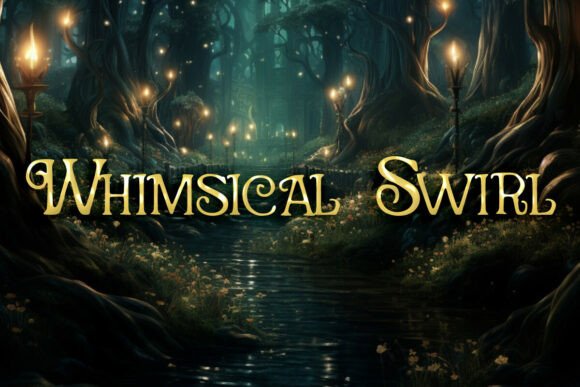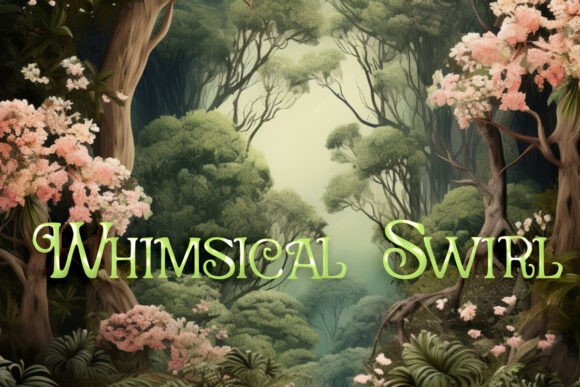
Whimsical Swirl Font
The Whimsical Swirl font is best classified as a decorative serif display font with fantasy and fairytale-inspired flourishes. Its elegant curves and playful swashes make it an exceptional choice for enhancing everything from T-shirts and stickers to branding elements that demand a touch of personality. Whether you’re crafting eye-catching magazine layouts or composing heartfelt greeting cards, Whimsical Swirl adds warmth and sophistication to every design. It integrates seamlessly with SVG files and Cricut projects, bringing a unique flair to handmade creations. From poster designs to social media graphics, this font injects a contemporary yet whimsical edge that makes your content stand out. Whimsical Swirl is your creative companion, ready to elevate a wide range of modern and expressive projects with its signature style.
Category: Display Font
Designed for prominent use in titles, logos, signage, and graphics—not suitable for body text
.Style: Decorative Serif with Swirls
Features high-contrast strokes, serif terminals, and elegant curls or whimsical flourishes that give it a storybook or enchanted woodland feel.
Tone: Fairytale, Magical, Elegant, Whimsical
Evokes a fantastical or nature-inspired atmosphere, ideal for dreamy, romantic, or fantasy-themed designs.
Best Used For:
Book covers (especially fantasy or children’s genres)
Invitations and stationery
Nature-themed branding
Cricut projects
Magical or mythical visual identities